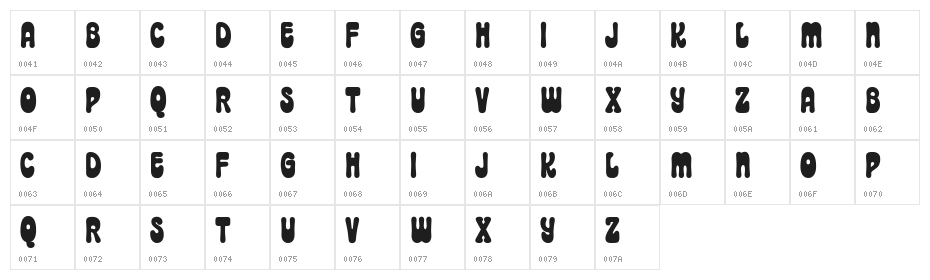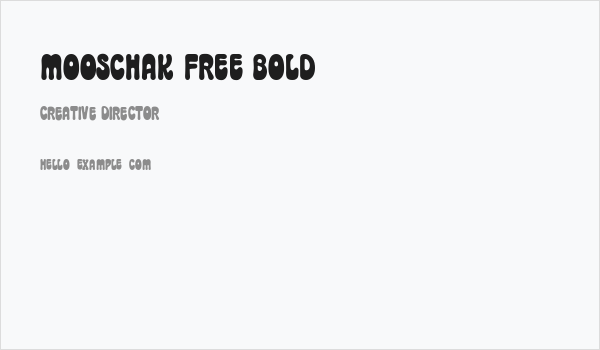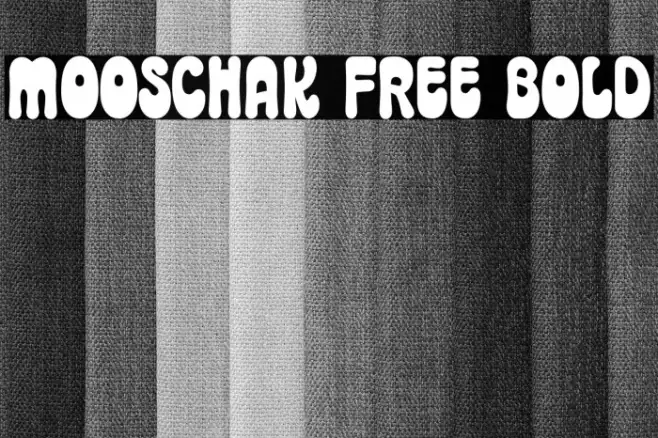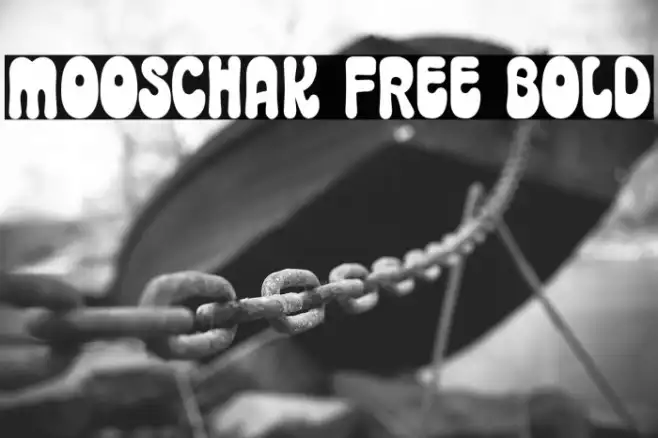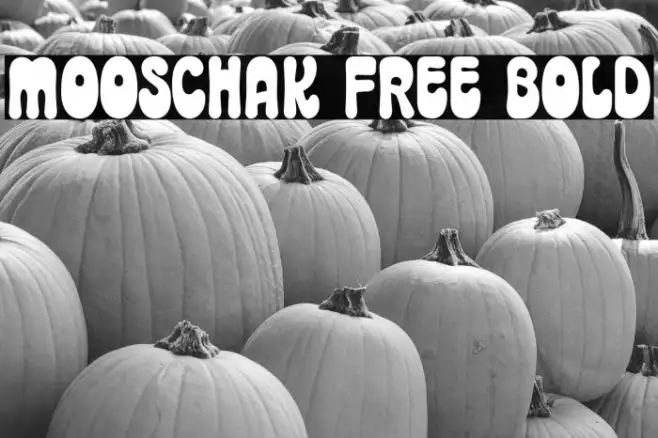
Mooschak Free Bold Font
This font features a bold and playful design with rounded, bubbly characters that give it a whimsical and friendly appearance. The letters are thick and have a consistent weight throughout, creating a strong visual impact. The rounded edges and smooth curves contribute to its approachable and informal style, making it suitable for creative and fun projects. The font maintains a uniform width across all characters, ensuring readability while adding a touch of uniqueness with its exaggerated forms.